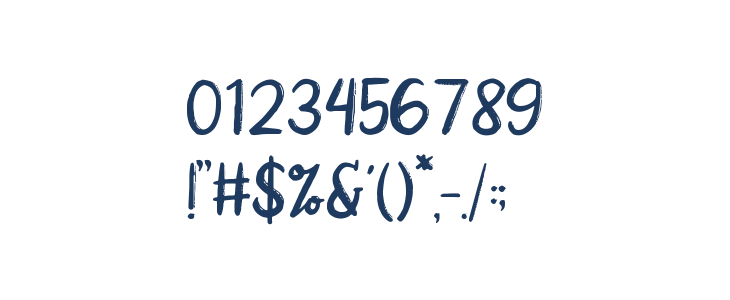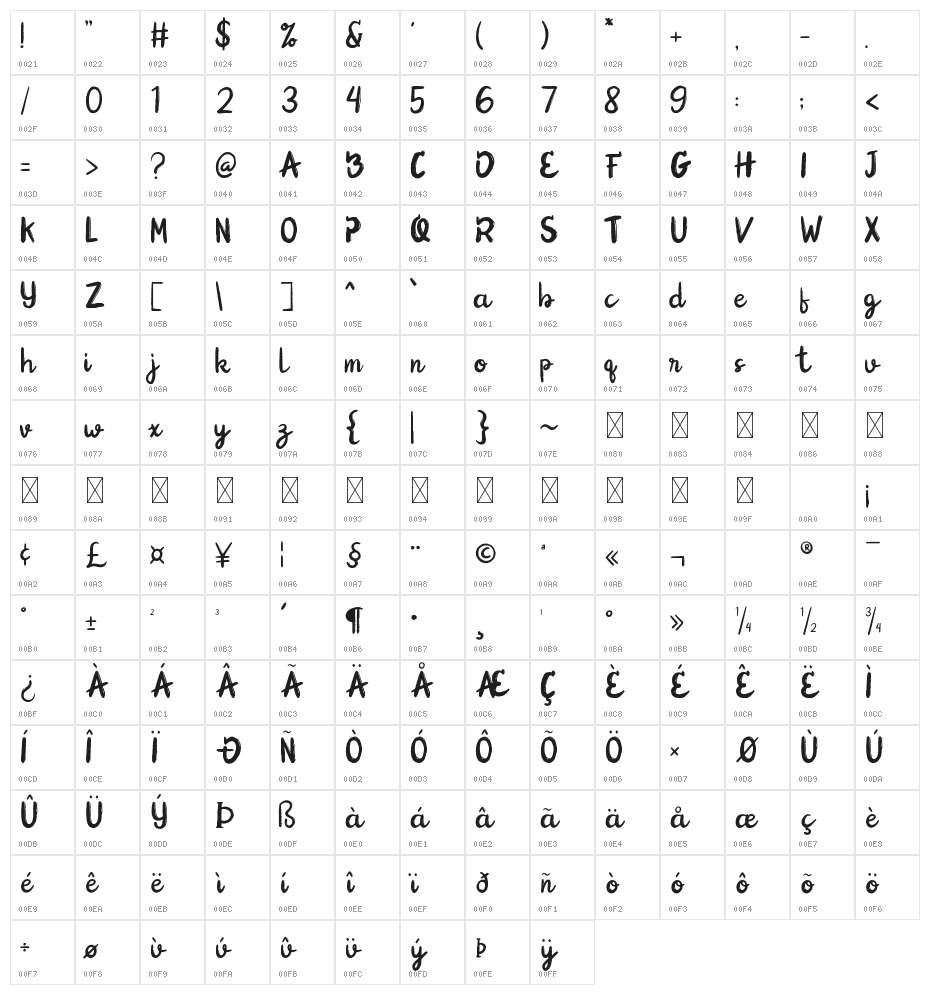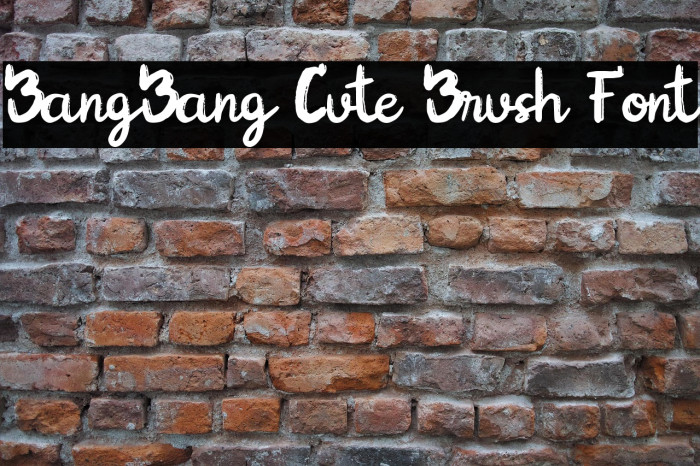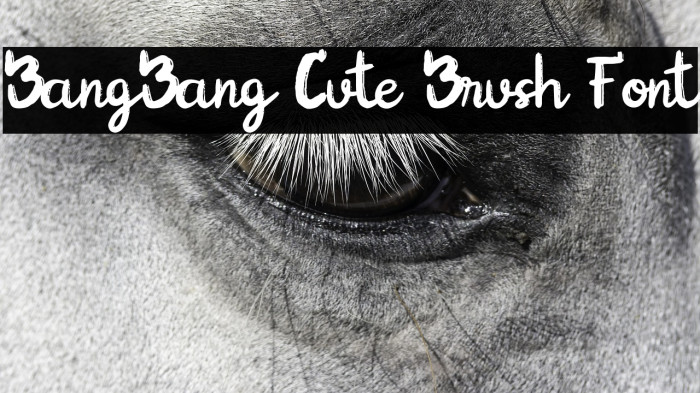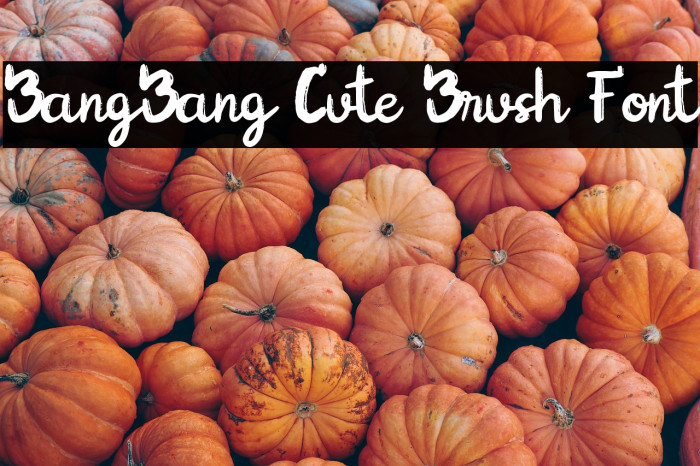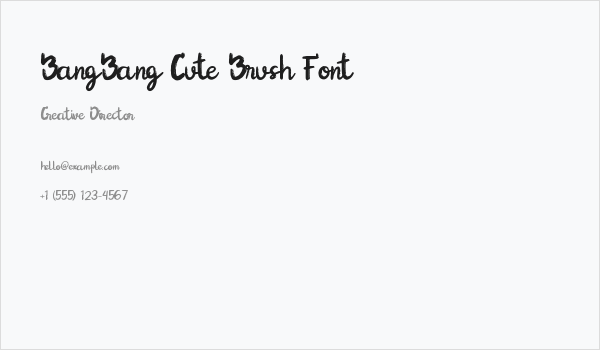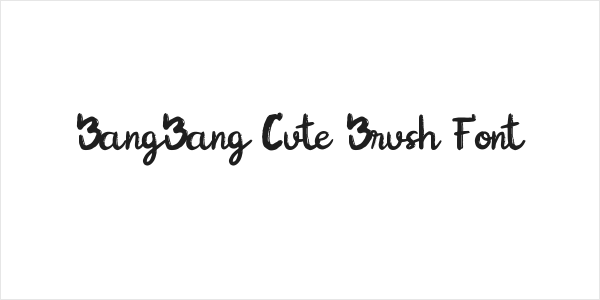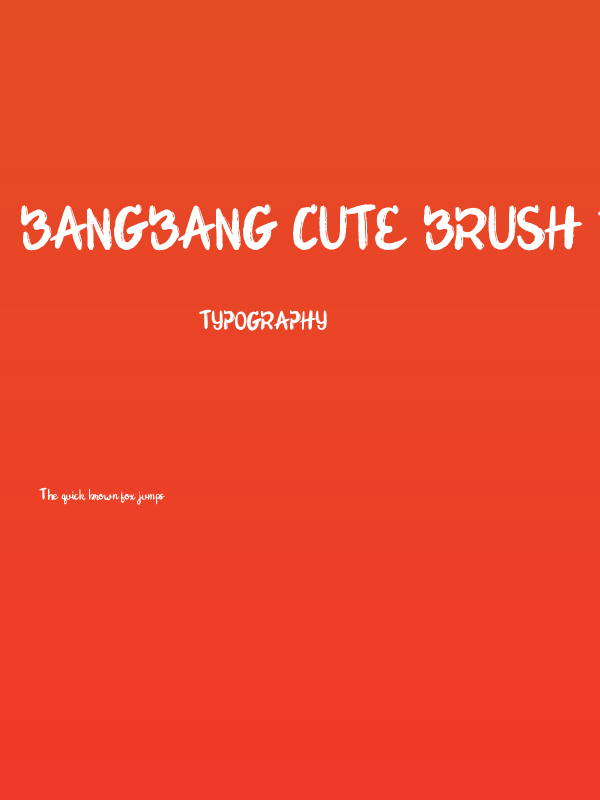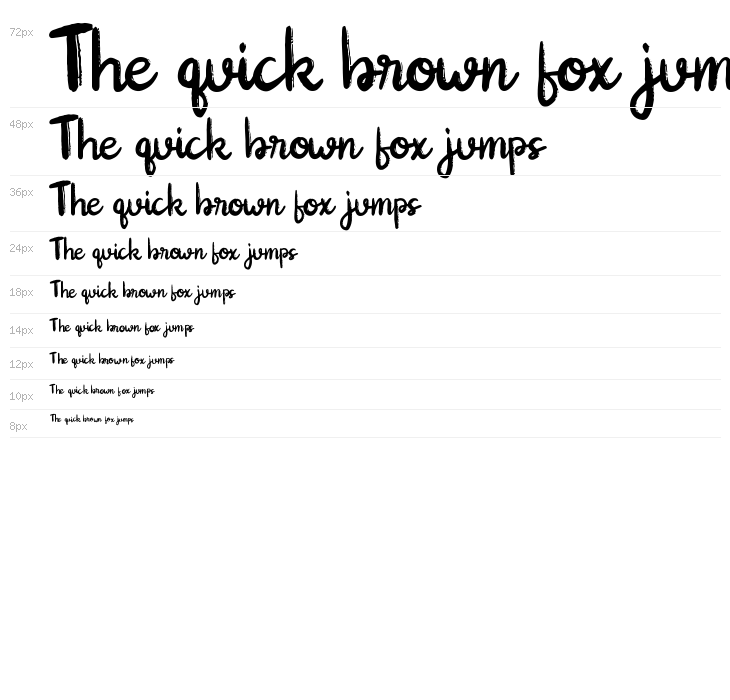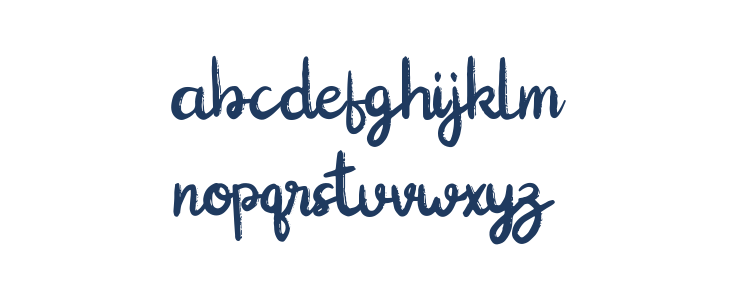
BangBang Cute Brush Font Font
BangBang Cute Brush Font Description
This font features a playful and energetic brush style, characterized by its bold and dynamic strokes. The letters have a hand-painted appearance, giving them a lively and informal feel. The uppercase and lowercase letters are consistent in their brush-like texture, with a slightly irregular baseline that adds to the casual charm. The numerals and special characters maintain the same brush style, ensuring a cohesive look across all elements. This font is ideal for projects that require a fun and approachable aesthetic, such as children's books, playful branding, or creative posters.
| Proposed Projects | Children's books, playful branding, creative posters, social media graphics. |